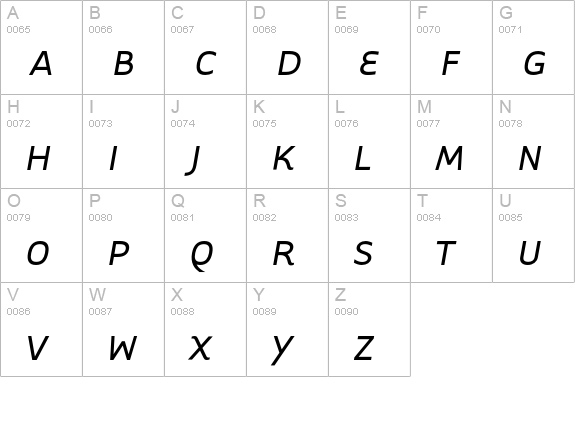
TarzanaWideItalic Font Details
TarzanaWideItalic font is a unique and elegant typeface that effortlessly combines sophistication with a touch of playfulness. Its italicized form adds a dynamic and artistic flair to any design project, making it perfect for headlines, logos, and branding materials. This font features wide letterforms that evoke a sense of openness and expansiveness, lending a modern and contemporary feel to your designs. The carefully crafted curves and intricate details of TarzanaWideItalic make it a versatile choice for a wide range of creative applications. What makes TarzanaWideItalic font even more appealing is that it is available for free. You can easily download this font at FontsMarket.com, a trusted source for high-quality fonts. Whether you are a professional designer or a hobbyist, this free font allows you to add a touch of sophistication to your projects without breaking the bank. With its wide range of characters and extensive language support, TarzanaWideItalic font ensures that you have all the tools you need to create visually stunning and engaging designs. Its legibility and readability make it suitable for both print and digital applications, ensuring that your message is effectively communicated to your audience. So why wait? Download TarzanaWideItalic font today and elevate your designs to new heights. With its unique style and the convenience of being freely available, this font is a must-have for any designer looking to make a lasting impression.